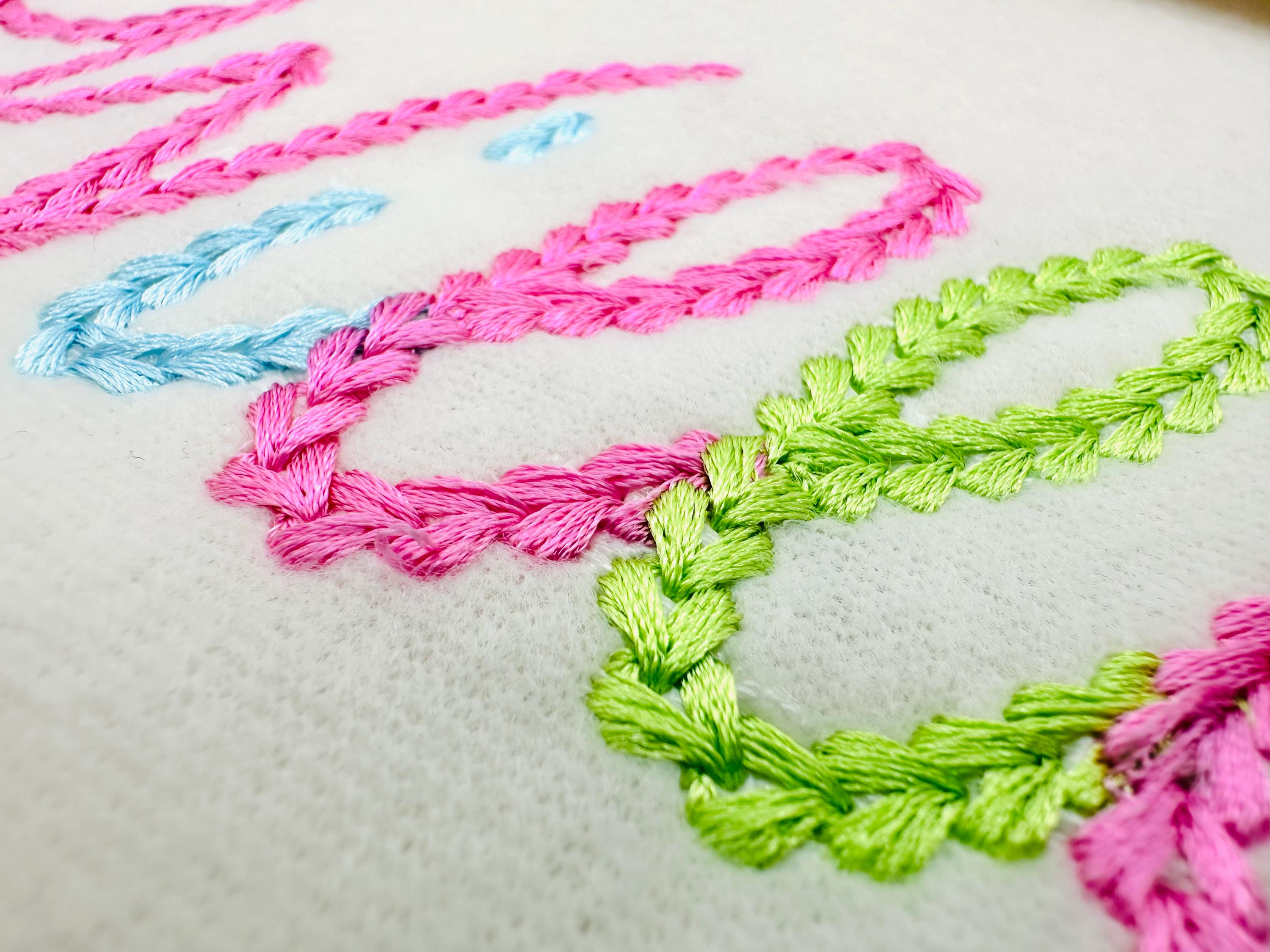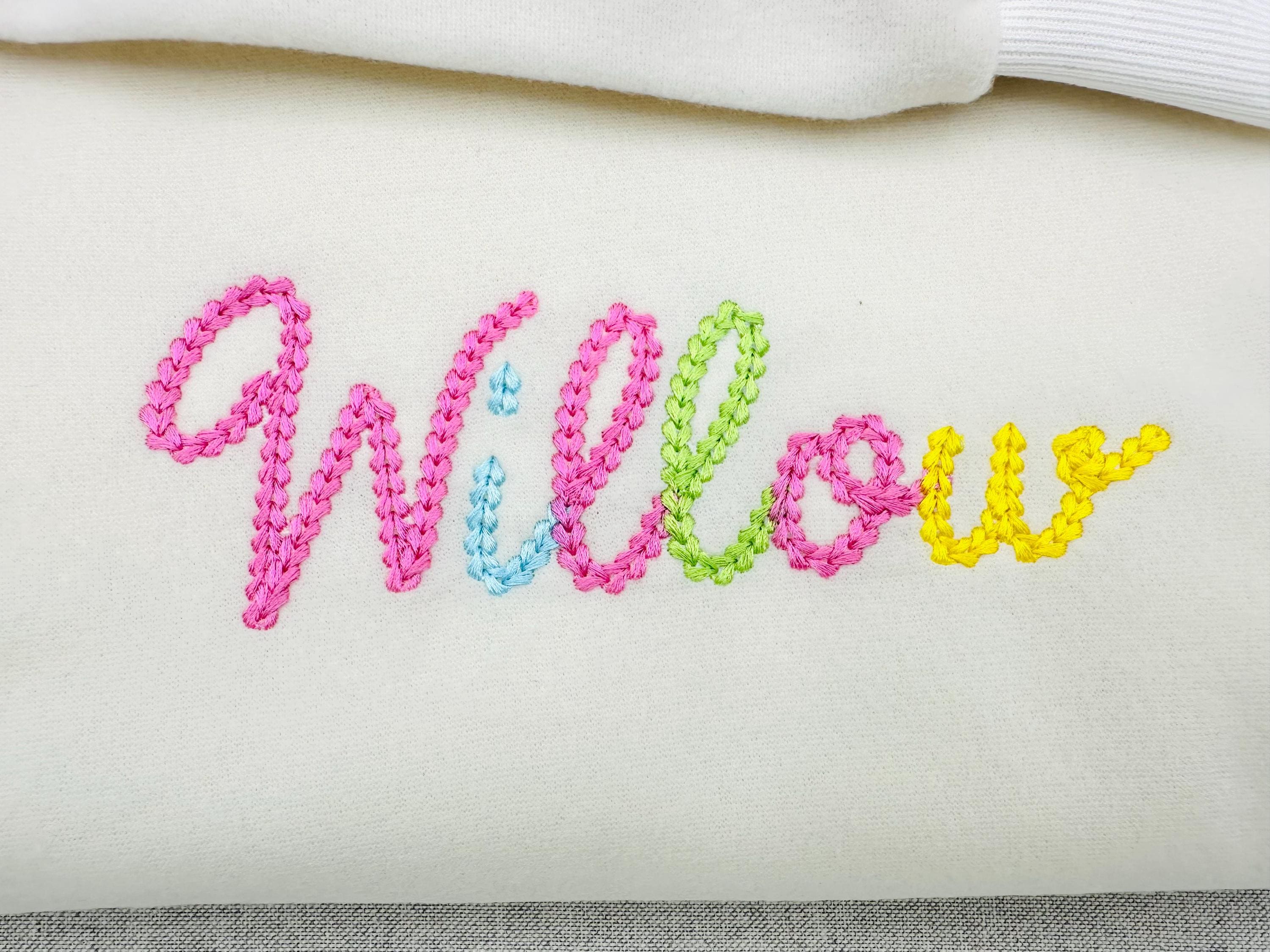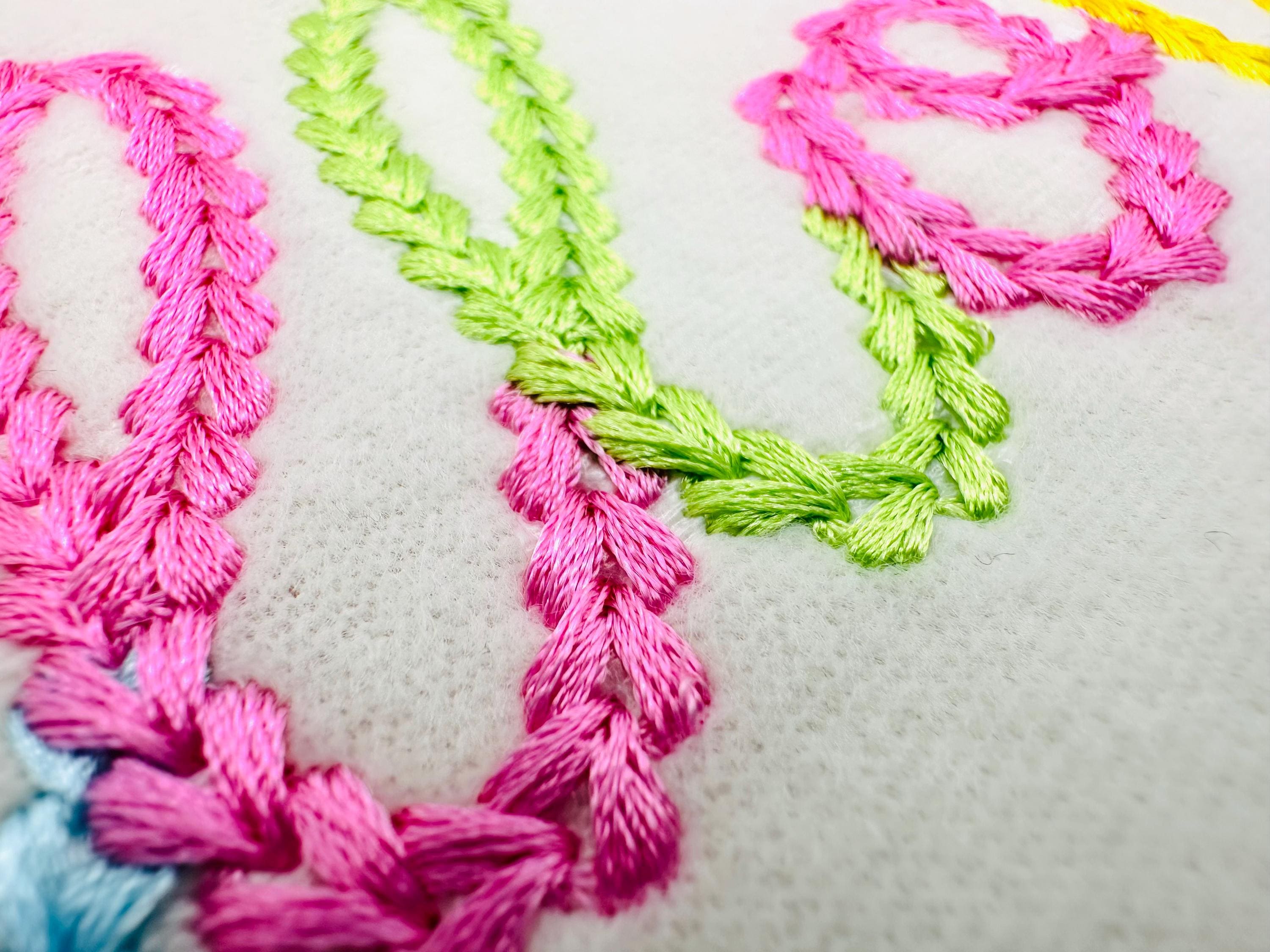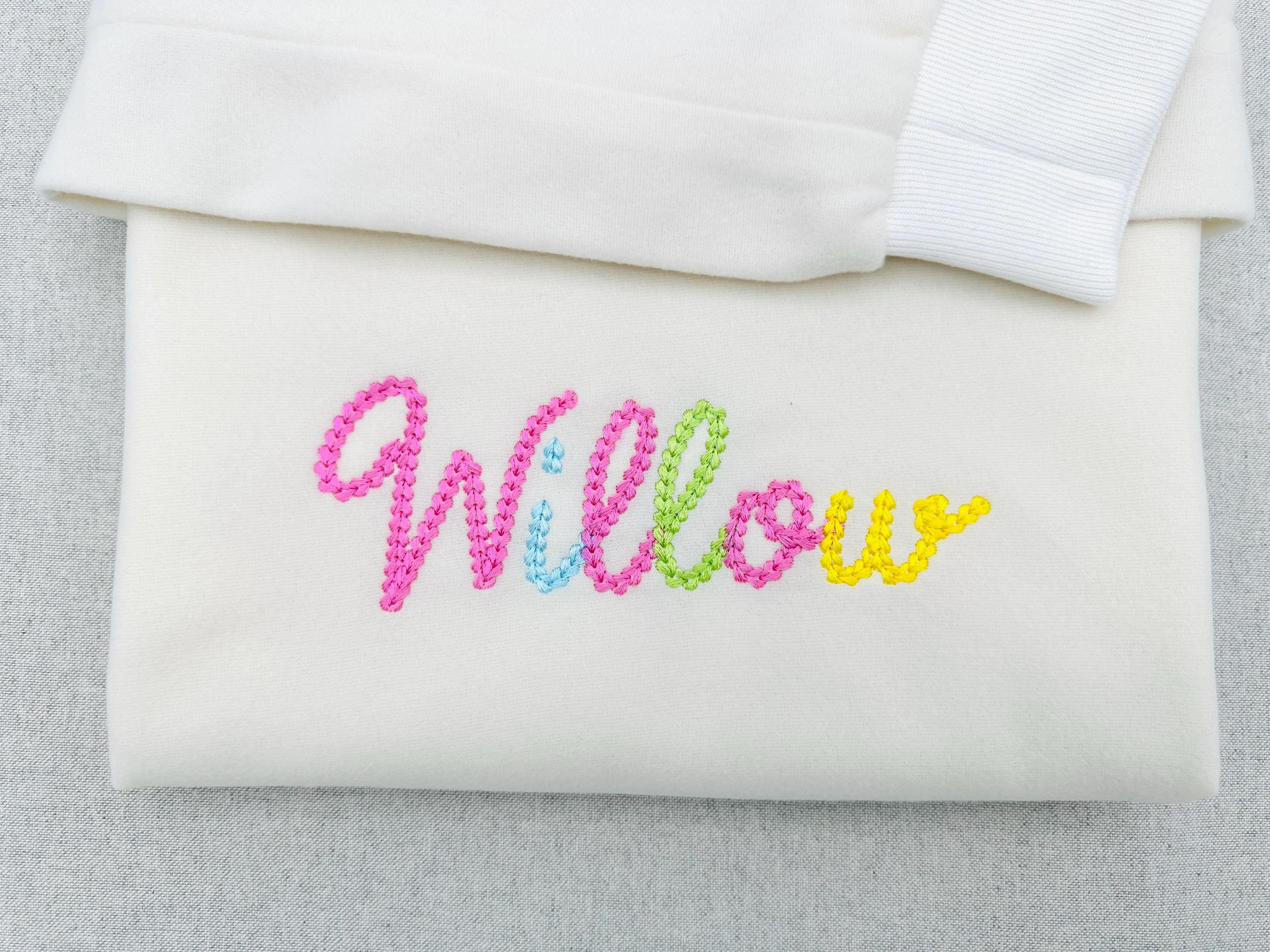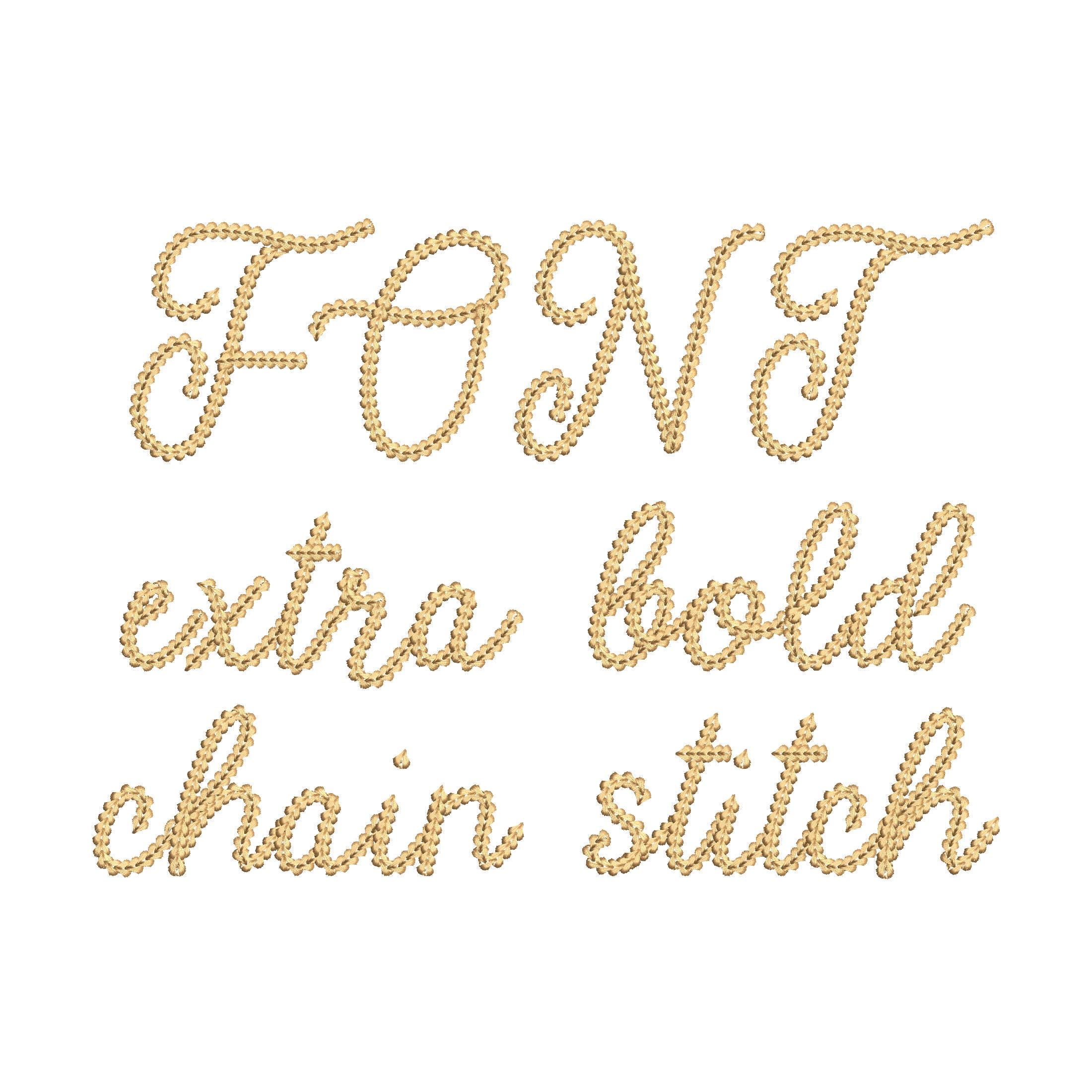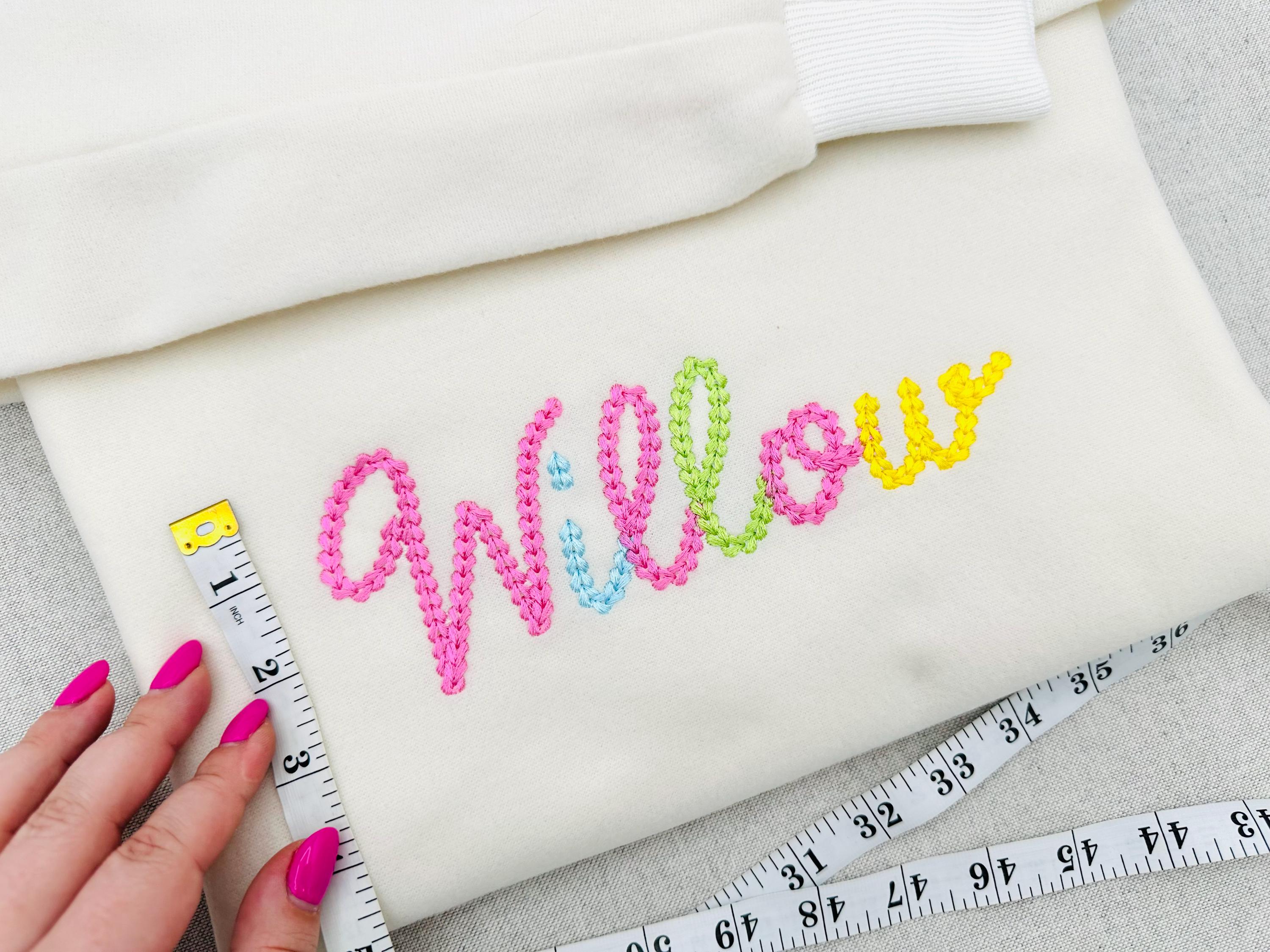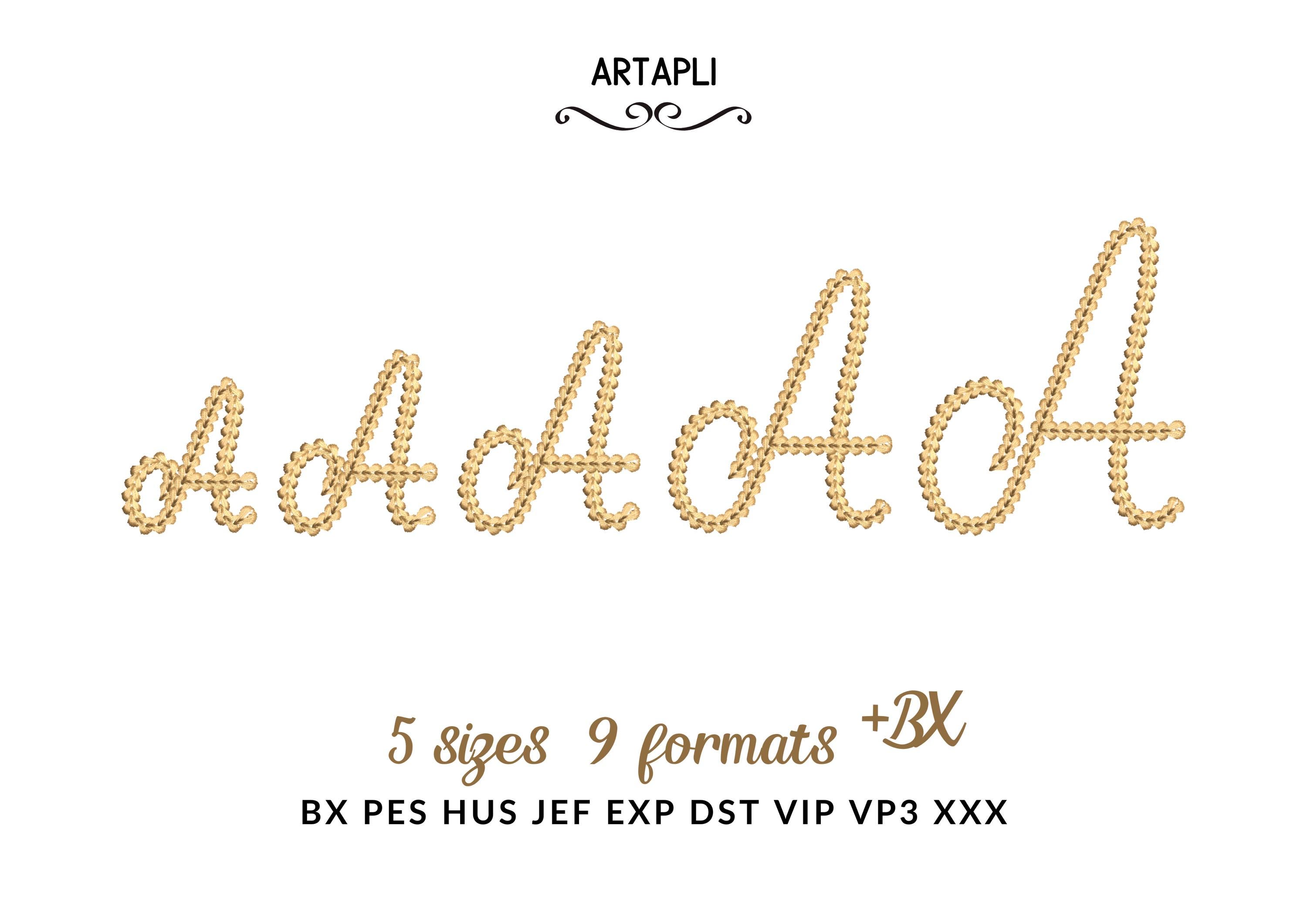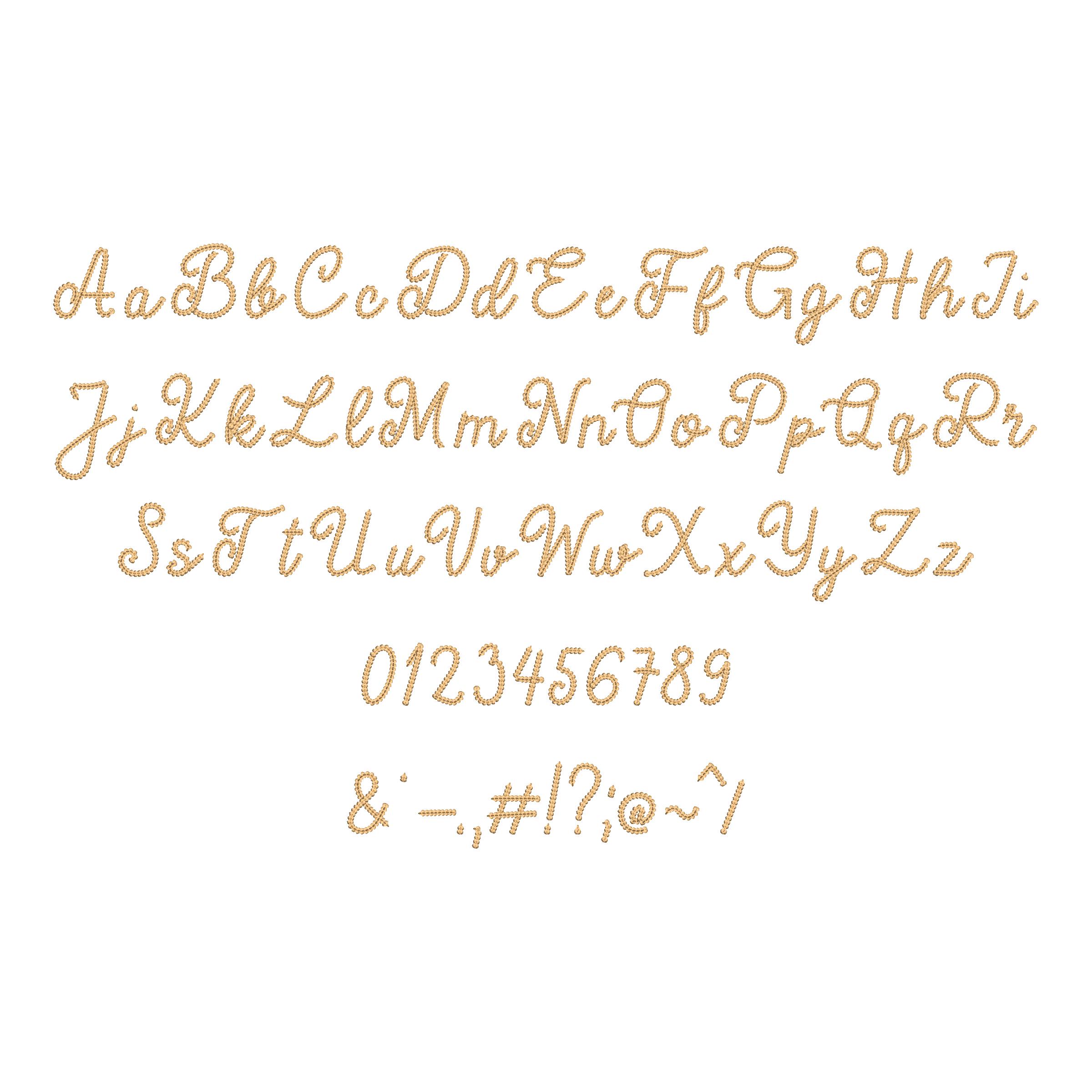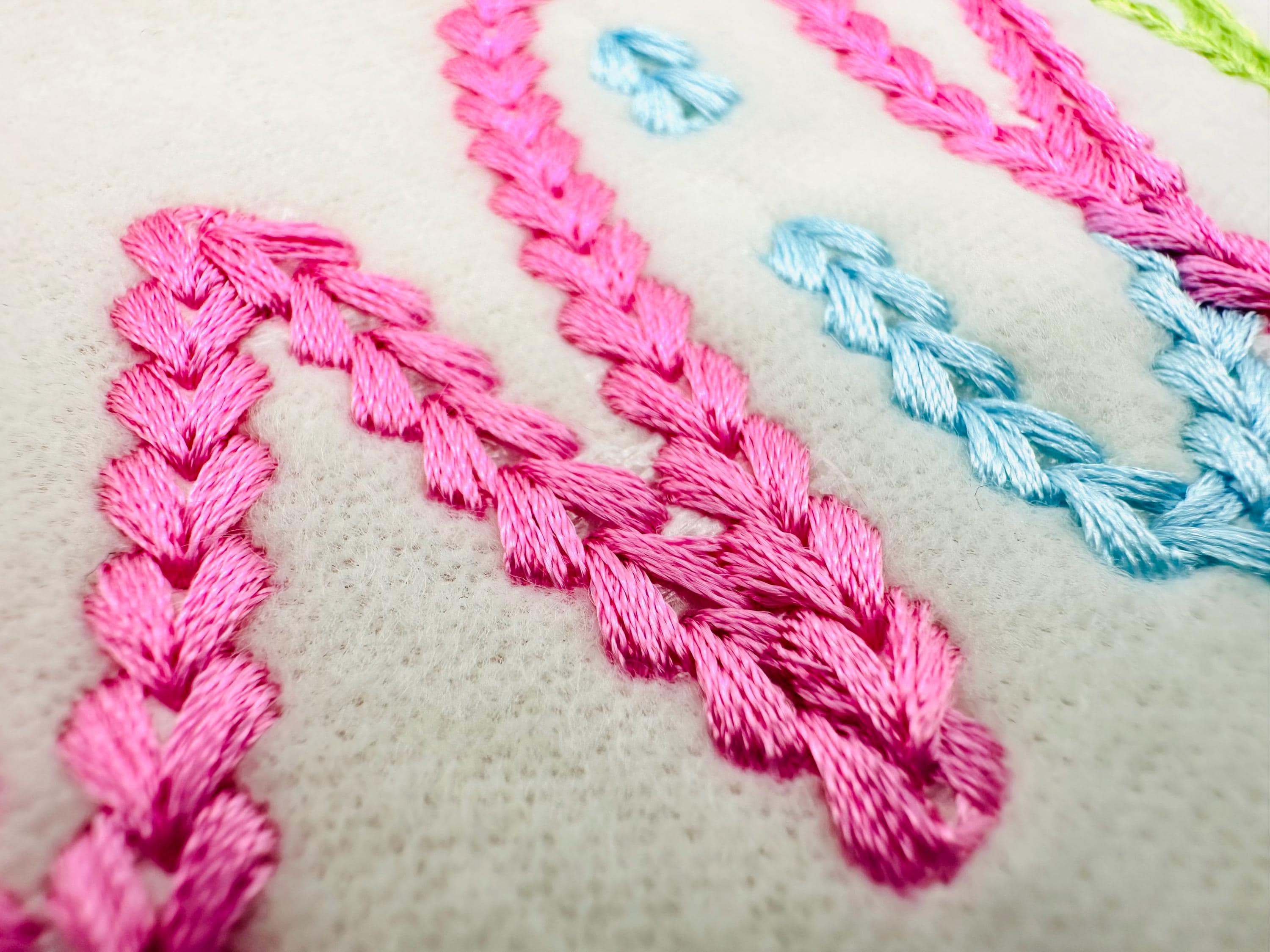
Extra Bold Chain stitch FONT handwritten script Alphabet Monogram machine embroidery designs knit effect sizes 2.2 up to 4.5 inches
Entire alphabet uppercase and lowercase letters, numbers, and punctuation.